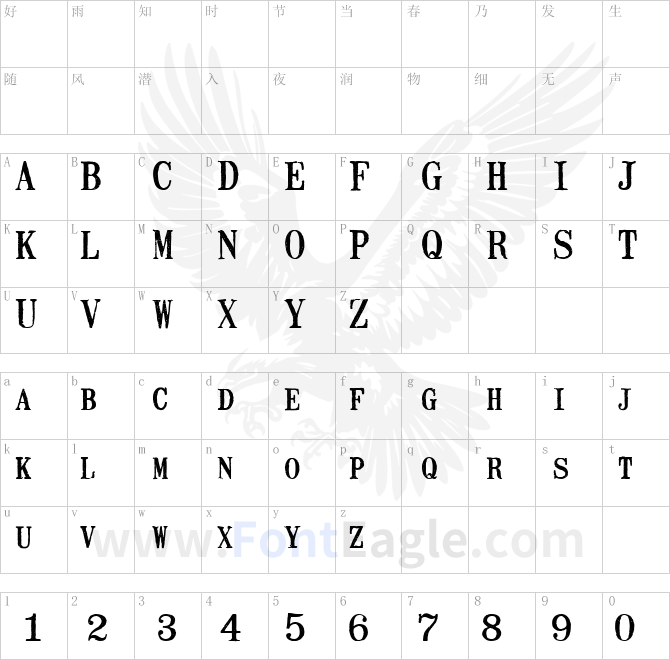
- Font name:Mailart Rubberstamp
- Font Version:Mailart Rubberstamp (version 3.1) by Keith Bates • © 2004, 2013 www.k-type.com
- Font Copyright:© 2004, 2013 www.k-type.com • The Mailart Rubberstamp fonts are derived from the individually rubber-stamped letters on printed and collaged envelopes received from mailartists, plus the typeface Clarendon Condensed.